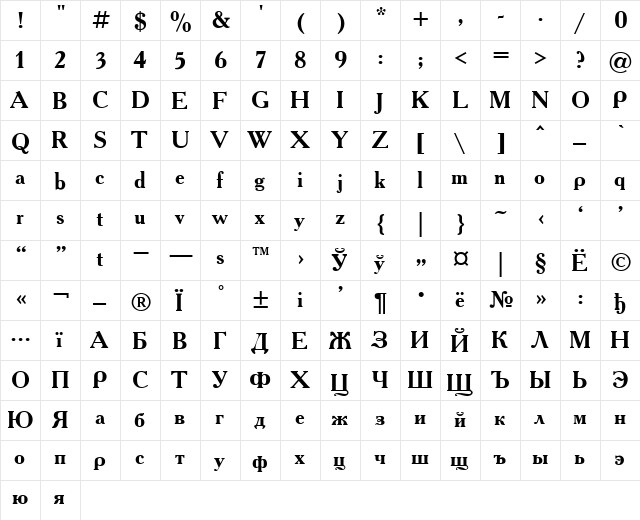
Academia Bold
Design Context for Academia Typeface
Academia is a composed and adaptable typeface that performs quietly and consistently across a wide range of design contexts. Its bold stroke weight gives it real presence on the page.